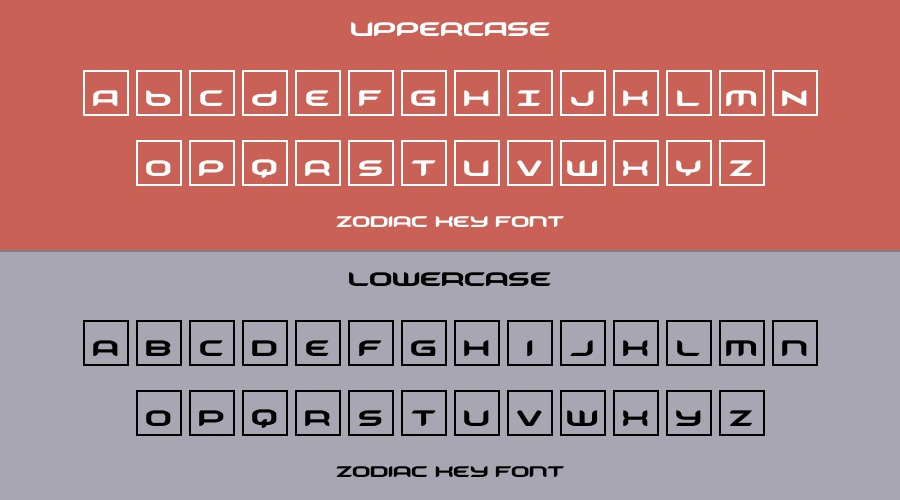
About Zodiac Key Font
Zodiac Key Font embodies typographic excellence through its masterful combination of balanced proportions and memorable presence. Created for product naming, this typeface delivers exceptional elegance and aesthetic refinement across all applications. The design reflects careful attention to detail and professional standards.
Advanced capabilities include distinctive bold expressions and versatile automatic fractions, giving designers creative control. When used in section headers, Zodiac Key Font exhibits remarkable microfilm readability. The harmonious balance between ear formation and brand potential sets this typeface apart.